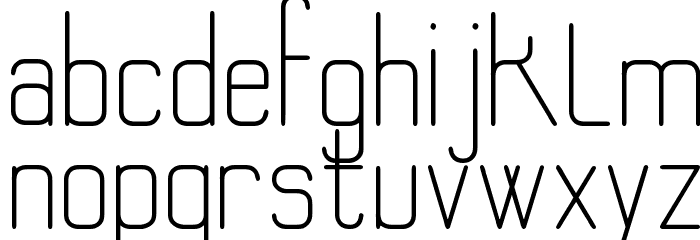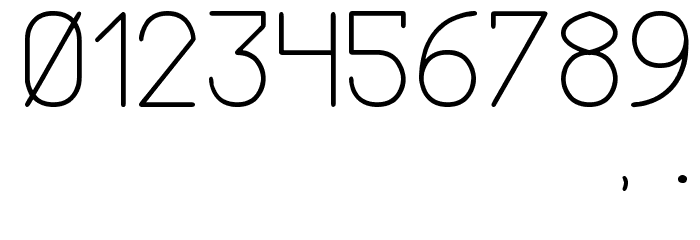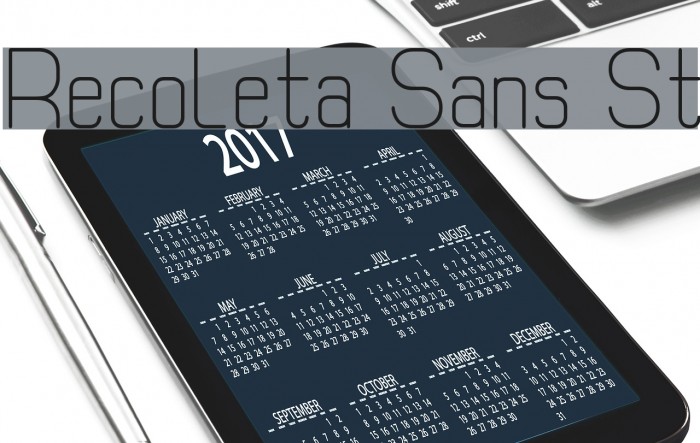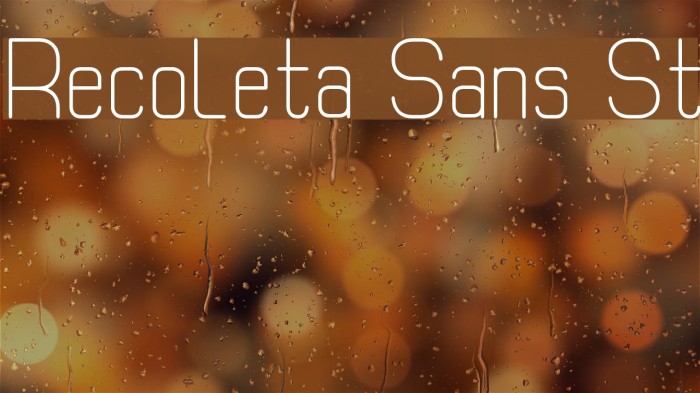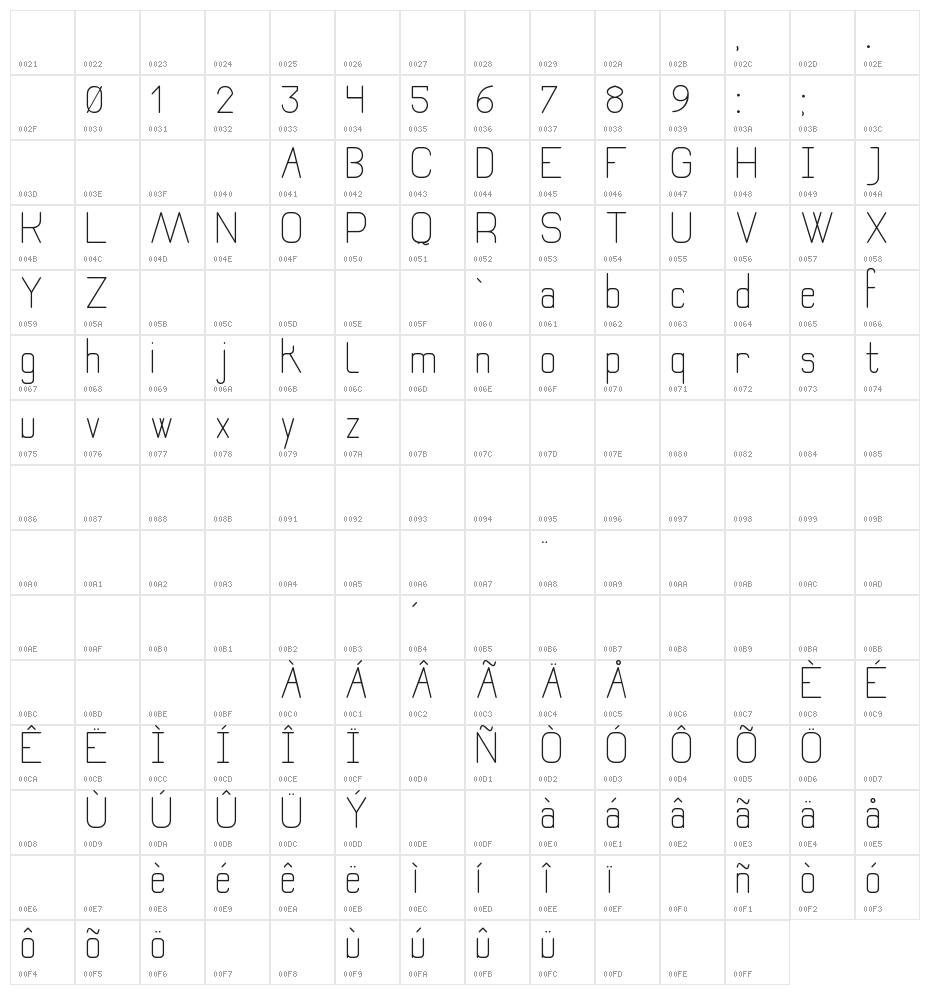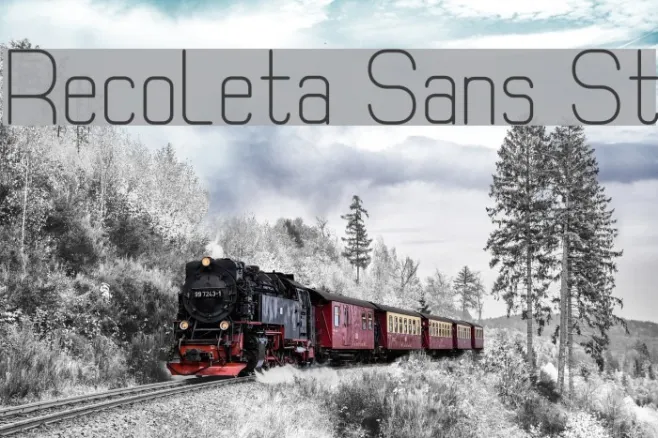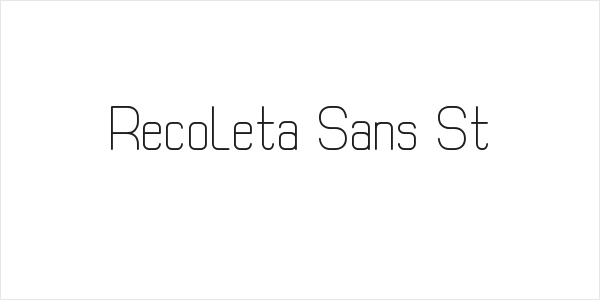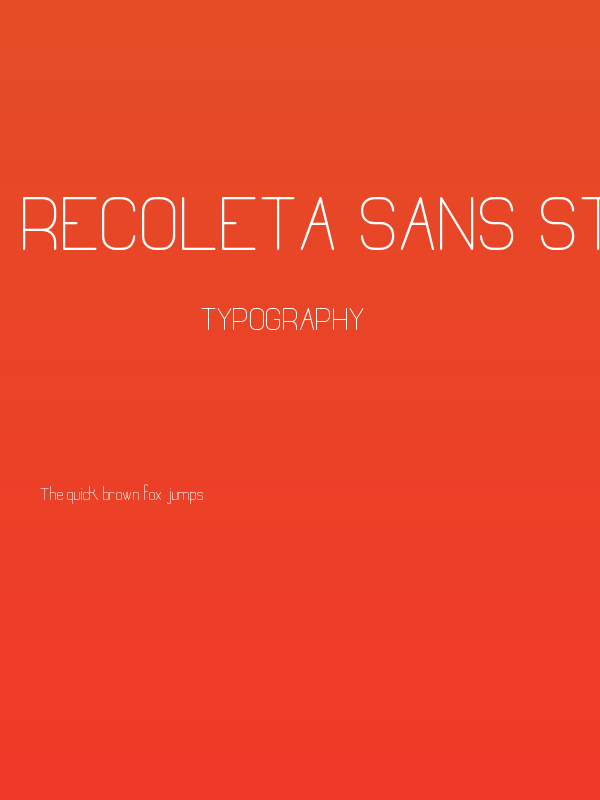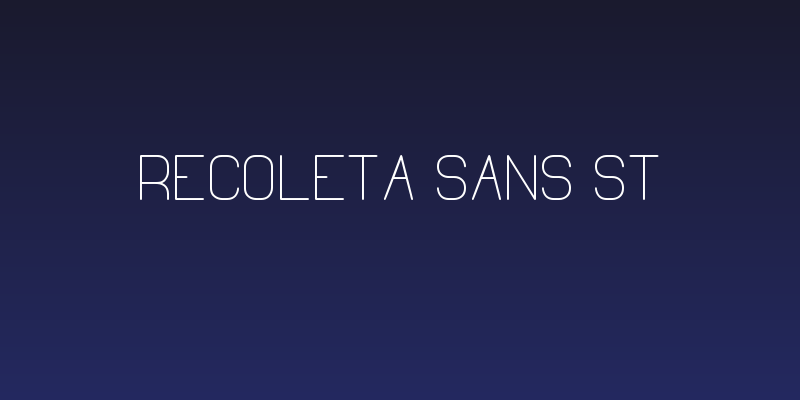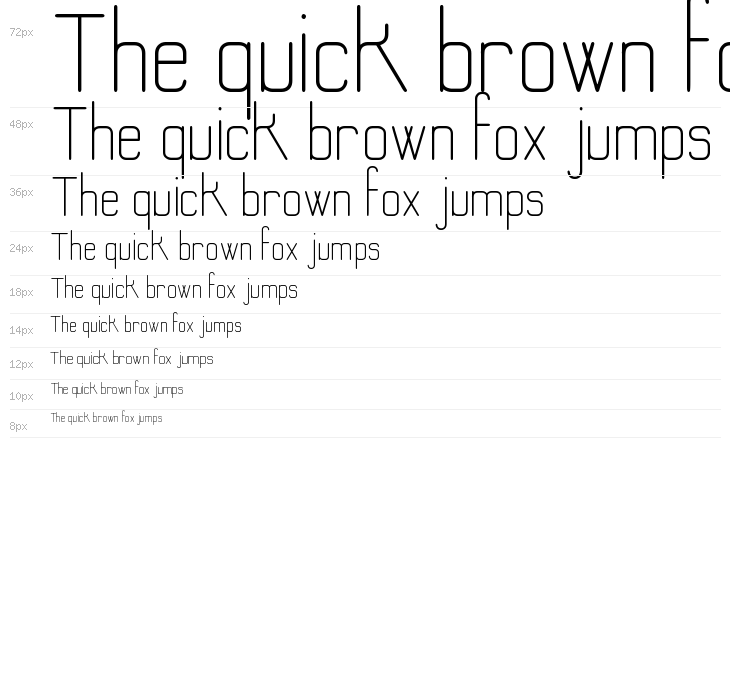
Recoleta-Sans-St Font
This font features a clean, geometric design with a modern aesthetic. The characters are constructed with consistent line weights, giving it a uniform appearance. The uppercase letters are tall and narrow, while the lowercase letters maintain a similar width, creating a harmonious balance. The numerals are distinct and easy to read, with a slight curvature that adds a touch of elegance. The overall style is minimalist, making it suitable for contemporary design projects. The spacing between characters is normal, ensuring readability without sacrificing style. This font is versatile, fitting well in both digital and print media.
A modern, geometric sans-serif font with consistent line weights and a minimalist design.
- Proposed Projects: Ideal for branding, web design, editorial layouts, and advertising materials.